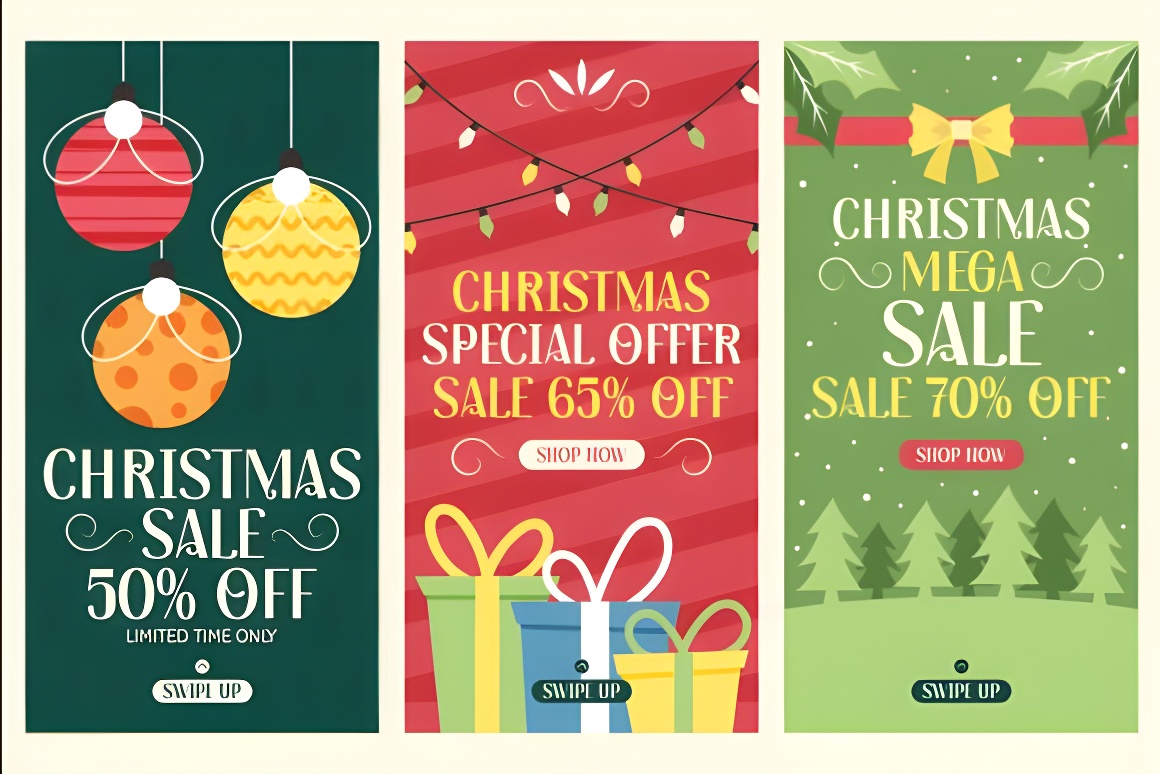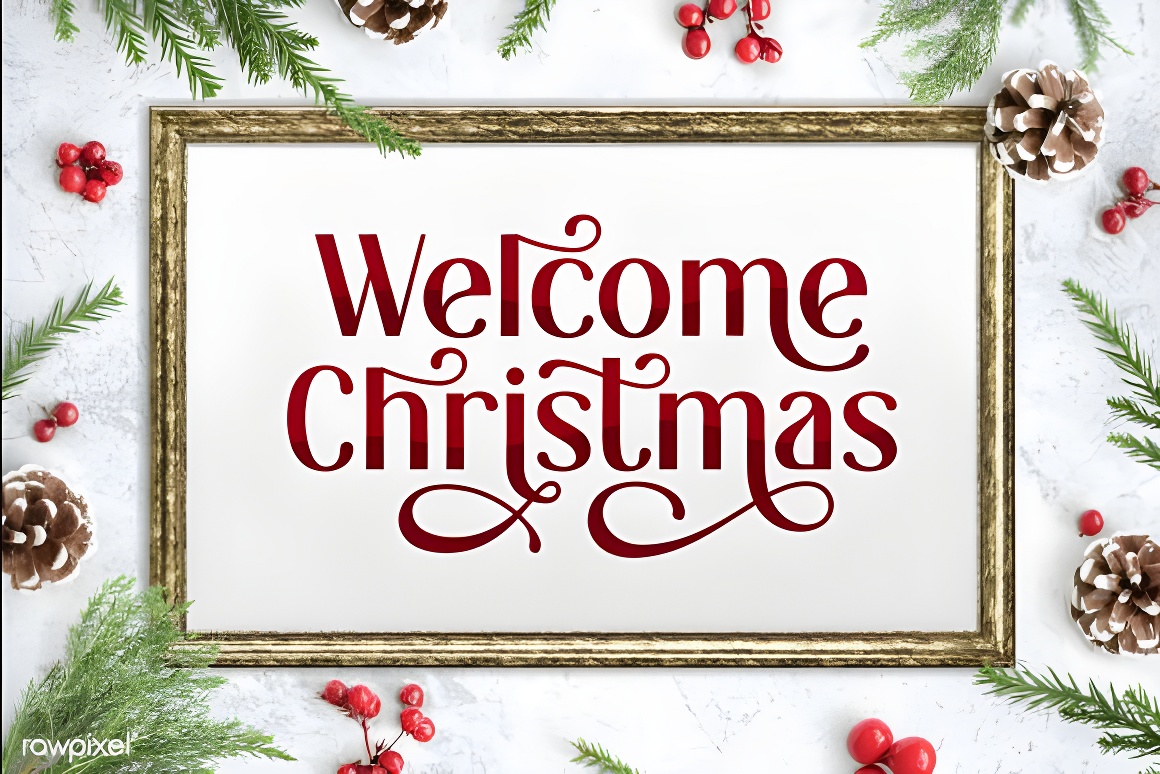
Modern Serene Christmas Font - Festive Sans-Serif Typeface Modern sans-serif Christmas font with festive elegance & decorative alternates. Perfect for holiday cards, invitations, winter branding, and quotes. Add joyful charm to your seasonal designs!